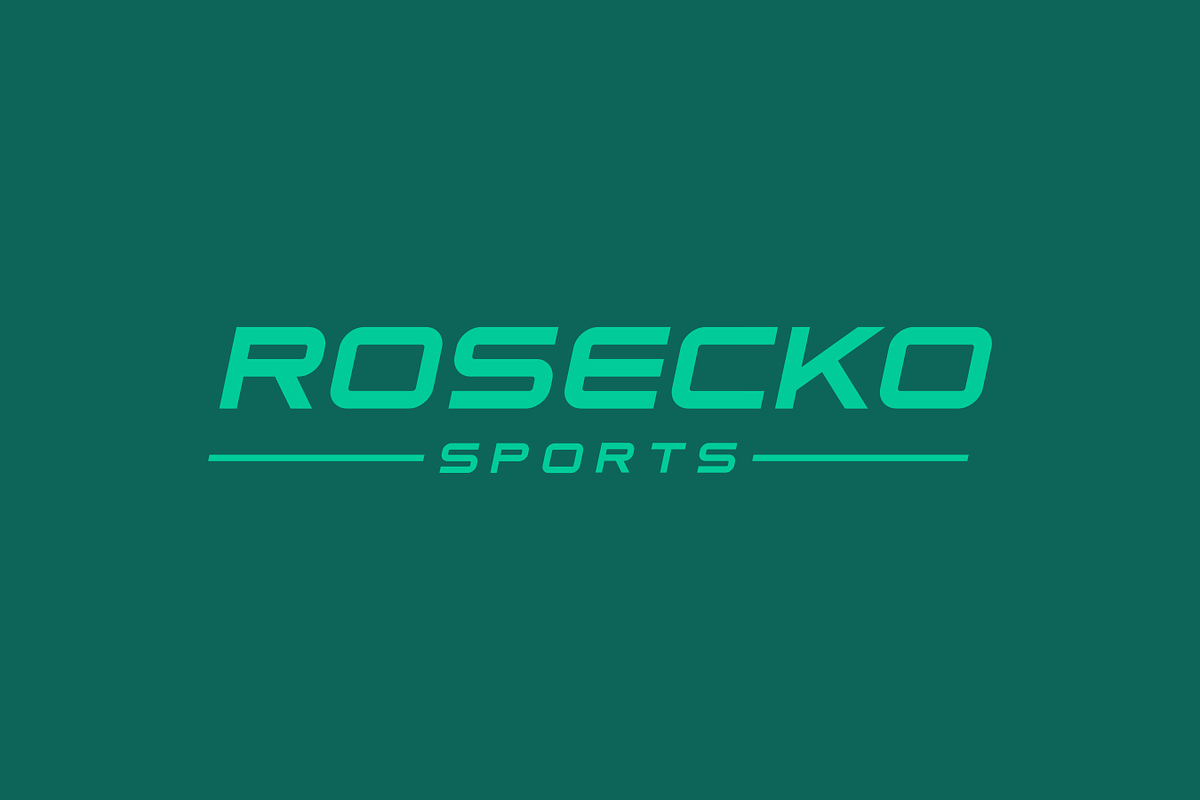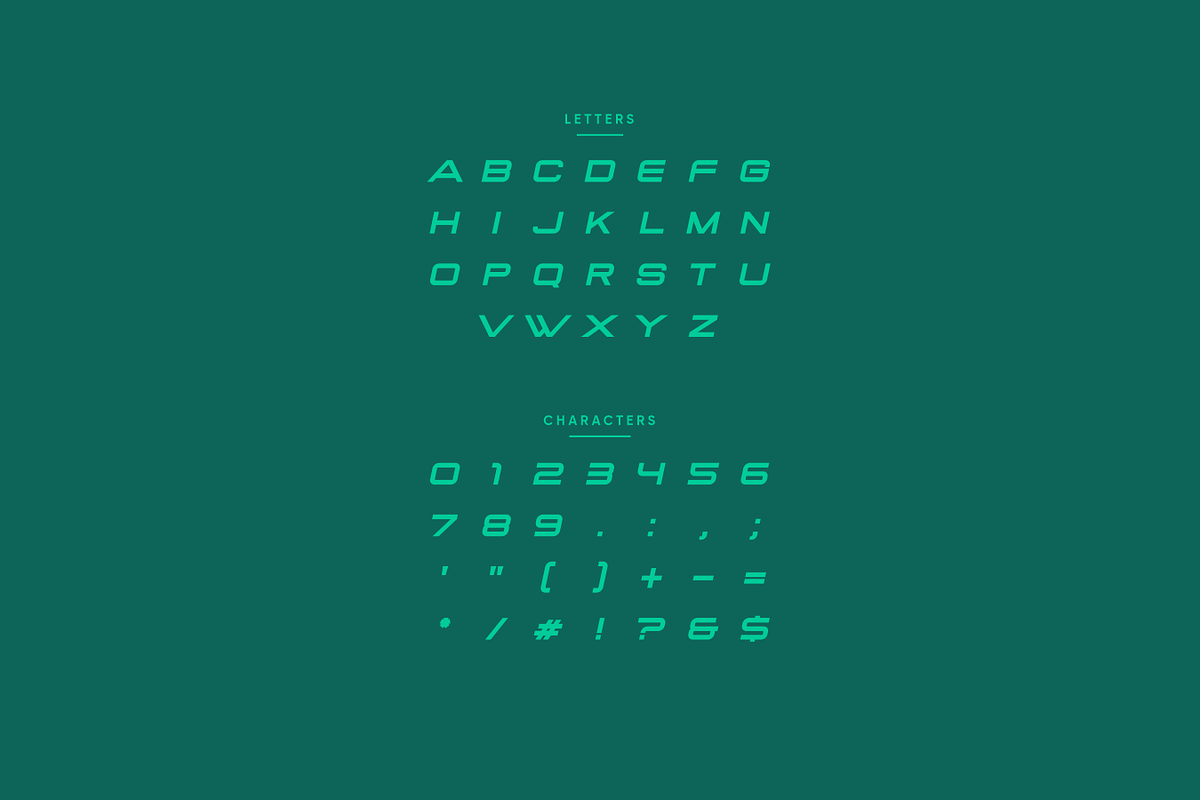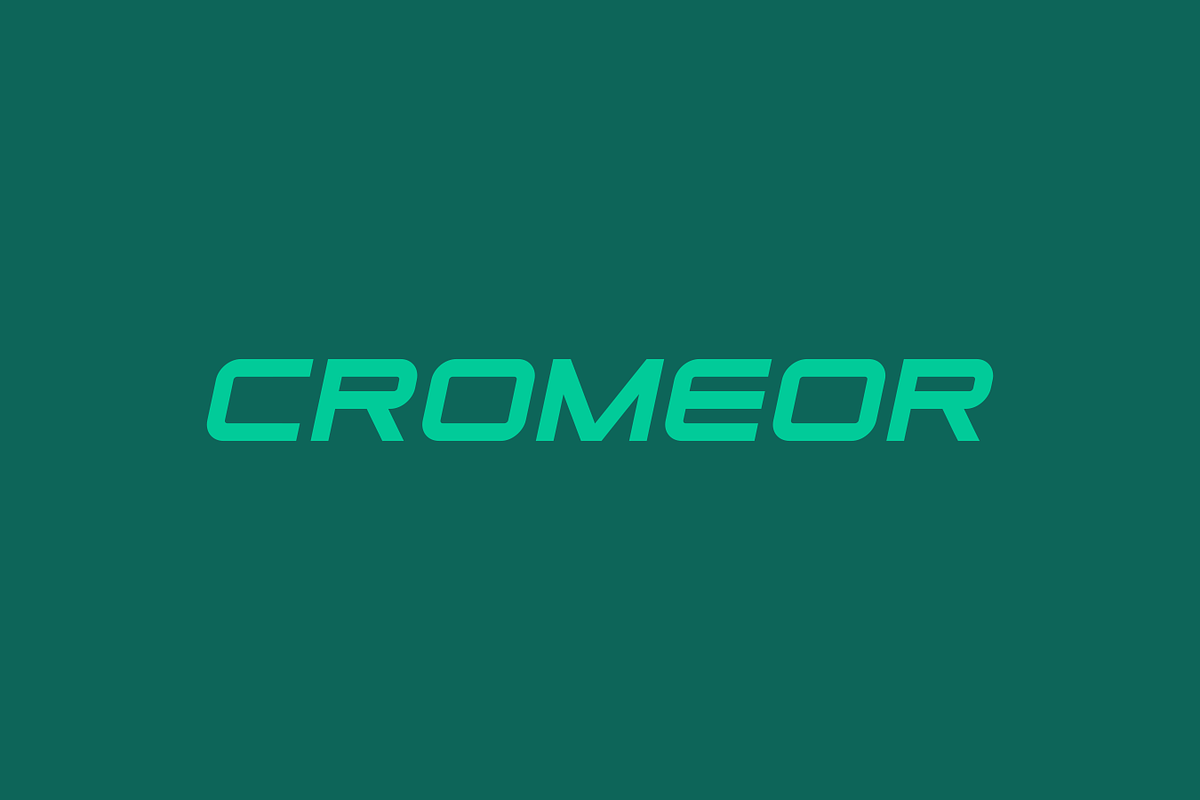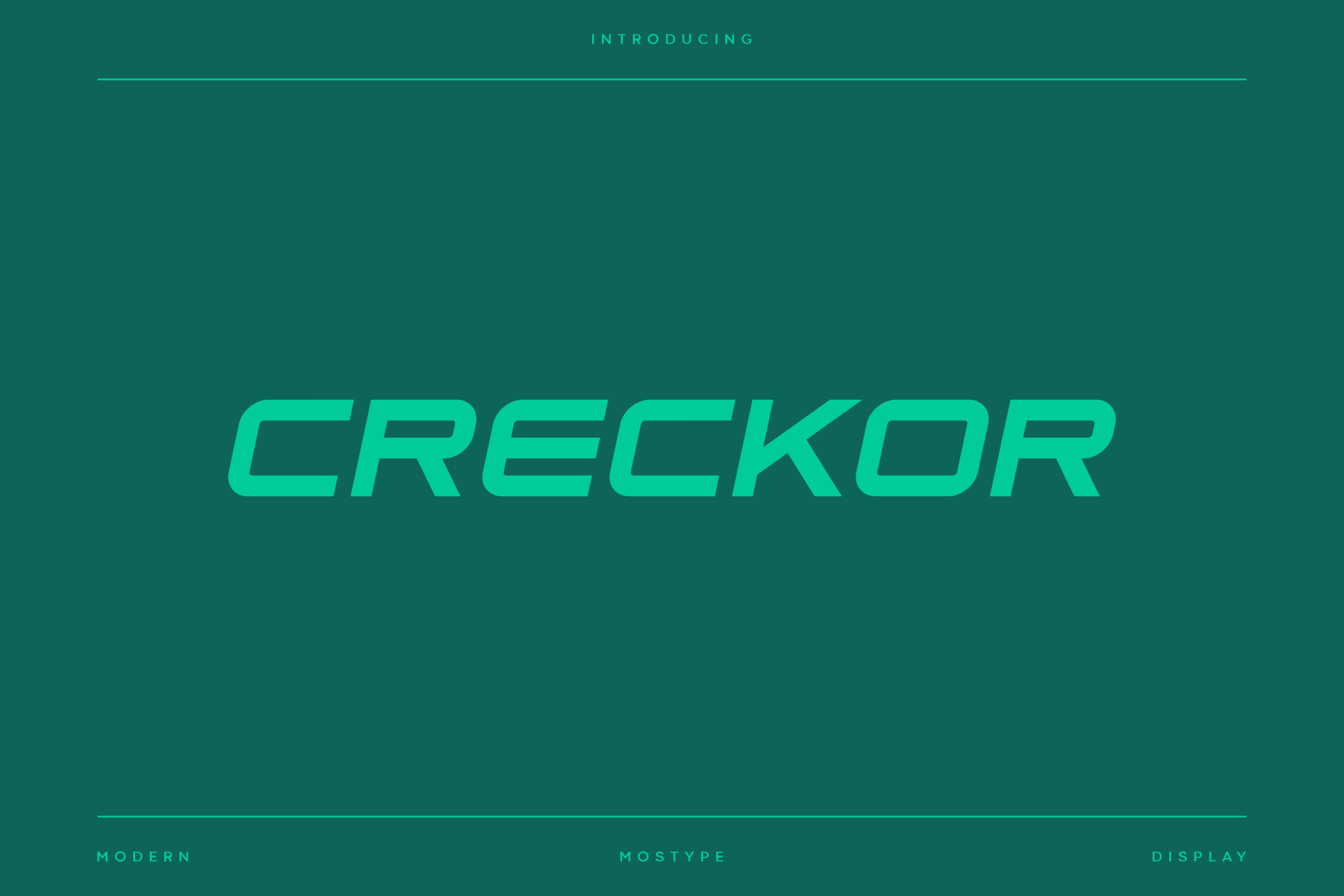
Creckor - Modern Sport Typeface
Creckor is a modern sports font built specifically for Branding, Headings, and more prominent typography needs. This font comes with a new and fresh style, it will make your design more memorable, it's perfect for adding this font to sports, tech, action and battle themes. Creckor was created for bold action style and a modern feel, so enjoy creating any project that will showcase your main ideas.